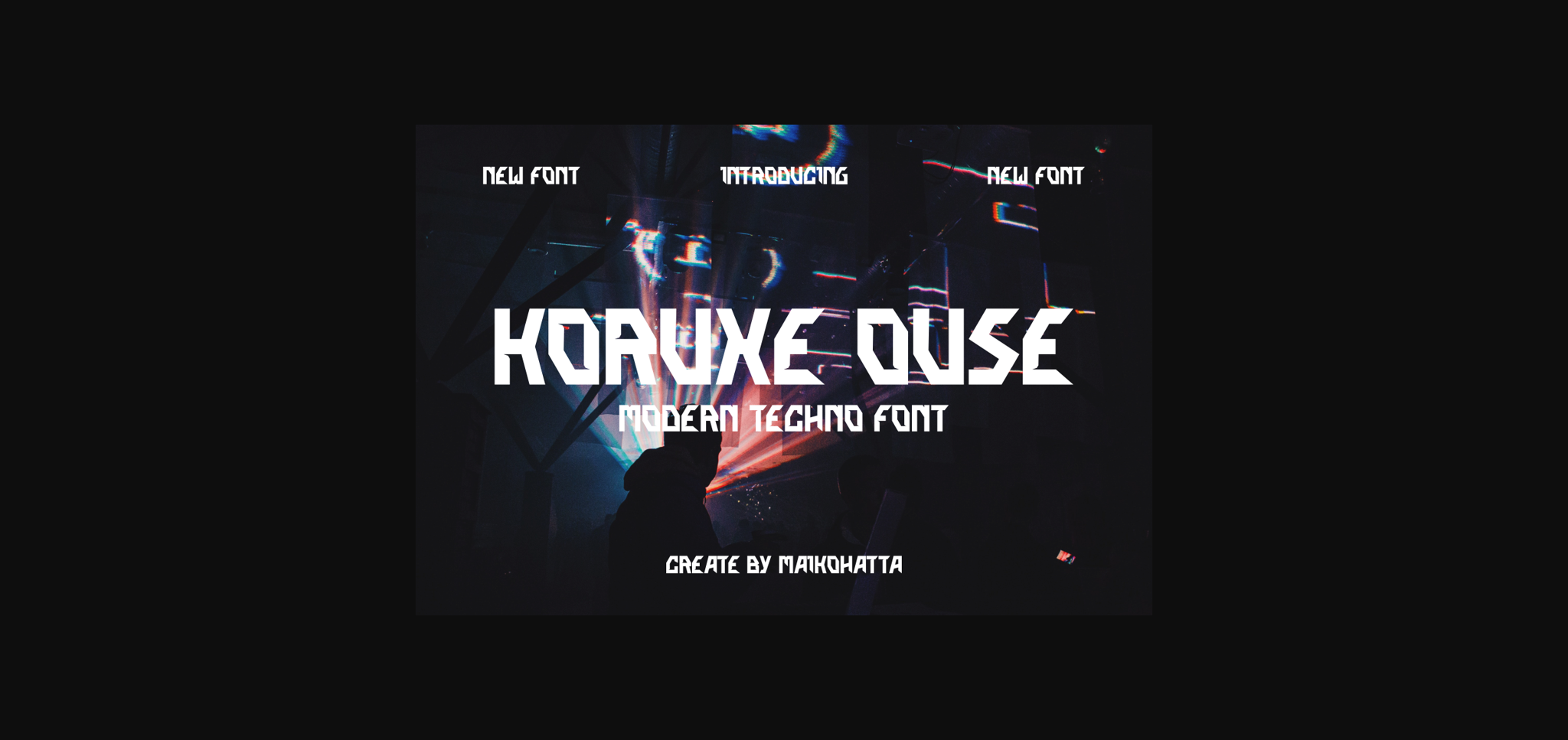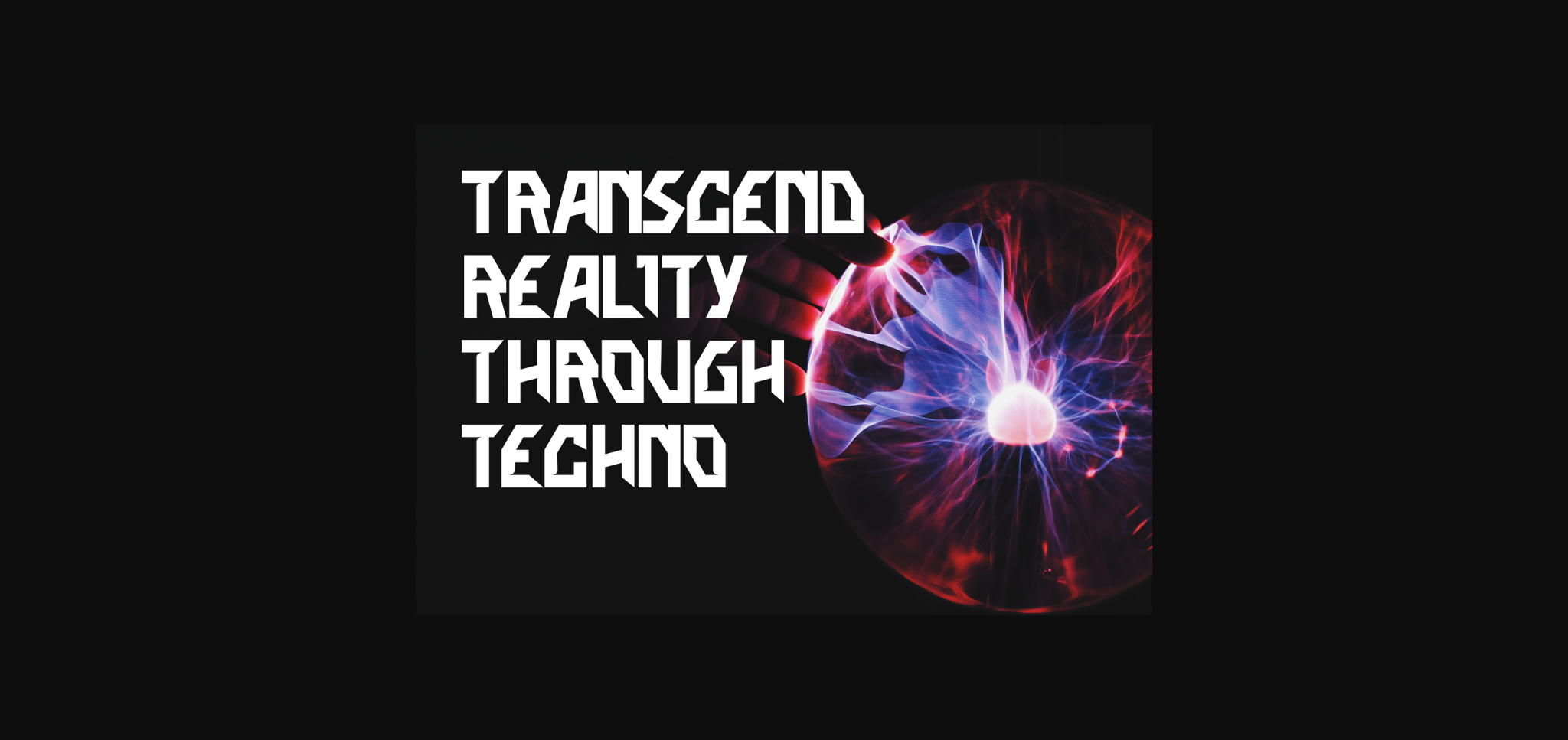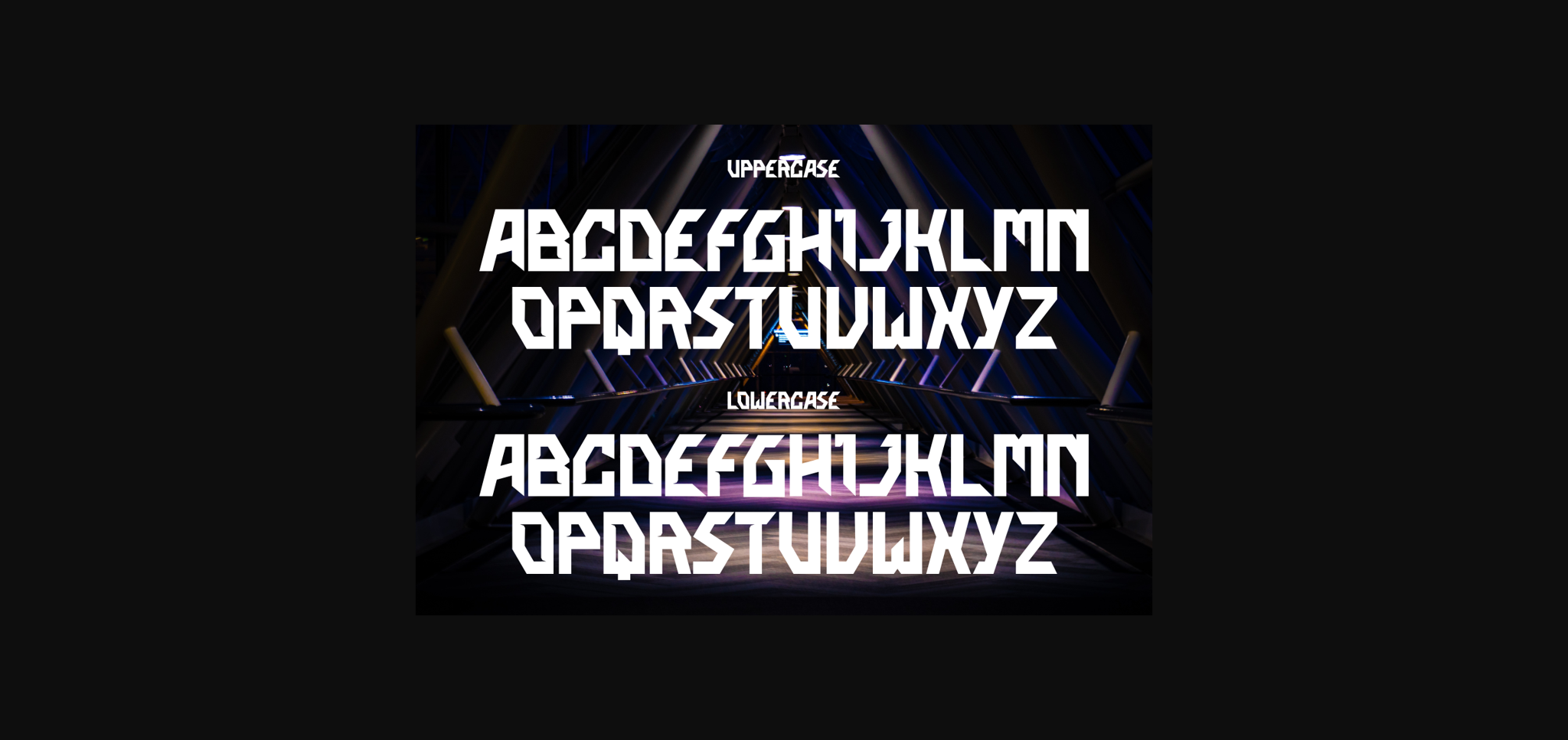
About Korukeouse Font
This Font is a type of lettering that features a futuristic design inspired by advanced technology. Korukeouse reflects the digital era and technological advancements, bringing a sense of modernity, innovation, and energy to any design. With sharp lines, geometric letter shapes, and futuristic elements, this font is suitable for projects related to technology, robotics, science, and modern lifestyle.